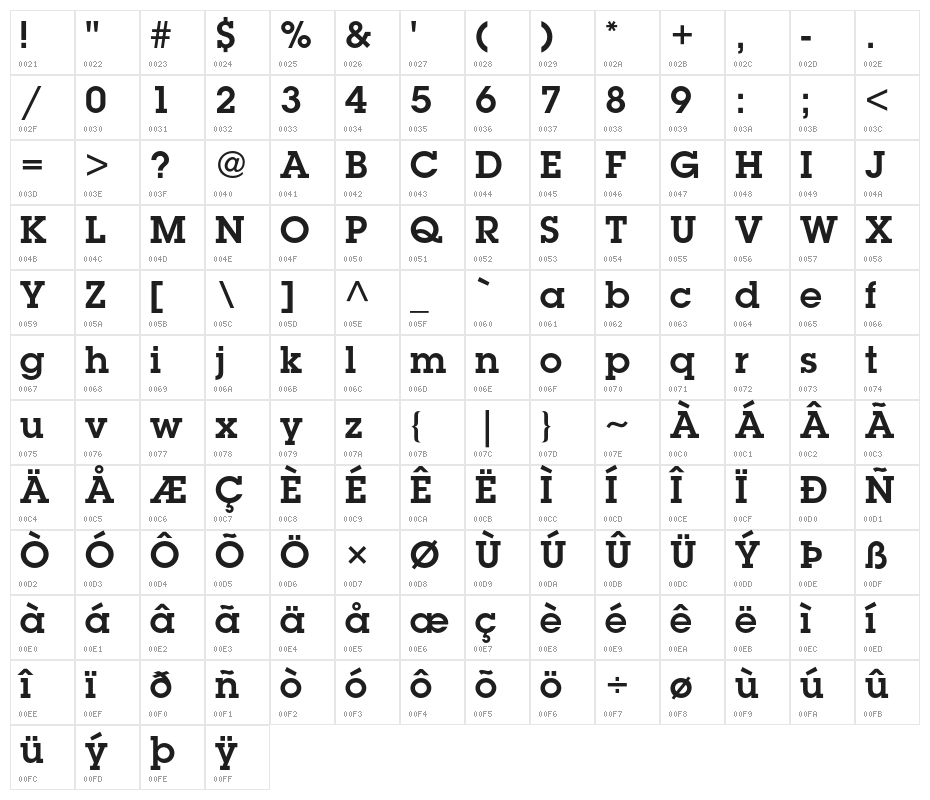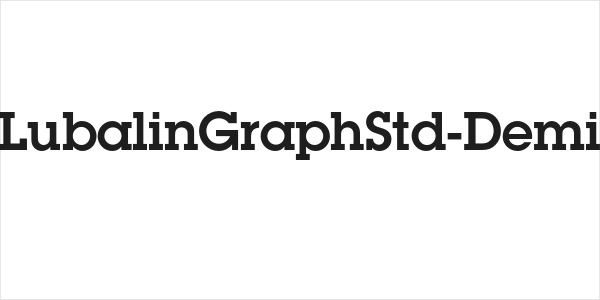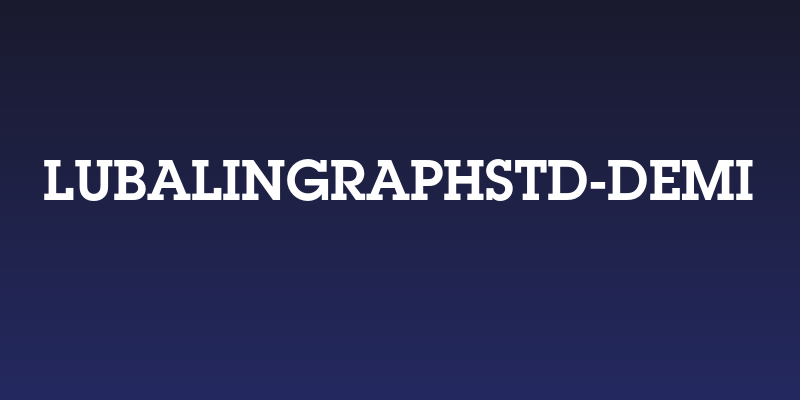
LubalinGraphStd-Demi Font
LubalinGraphStd-Demi Description
This font exhibits a bold and geometric slab serif style, characterized by its strong, rectangular serifs and uniform stroke widths. The uppercase letters are robust and commanding, while the lowercase letters maintain a consistent weight, offering a harmonious balance. The numerals are clear and legible, making them suitable for various applications. Special characters are distinct and well-defined, enhancing the font's versatility. Overall, this typeface combines a modern aesthetic with a classic serif structure, making it both functional and visually appealing.
| Proposed Projects | Ideal for branding, headlines, posters, and editorial design where a strong, modern serif is desired. |